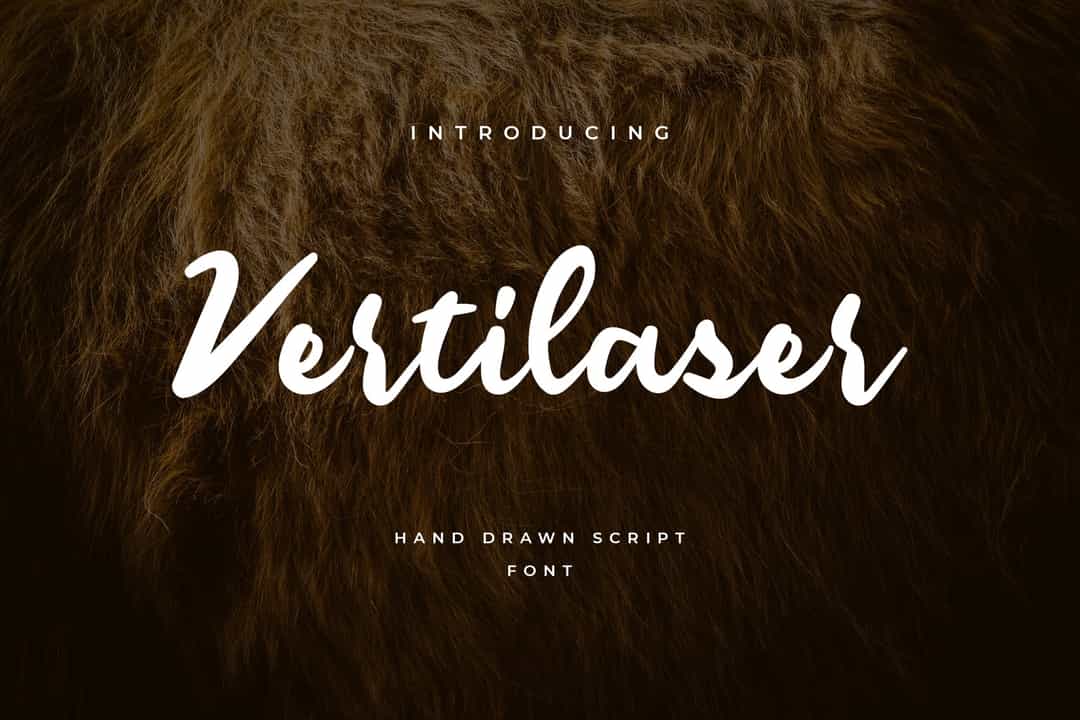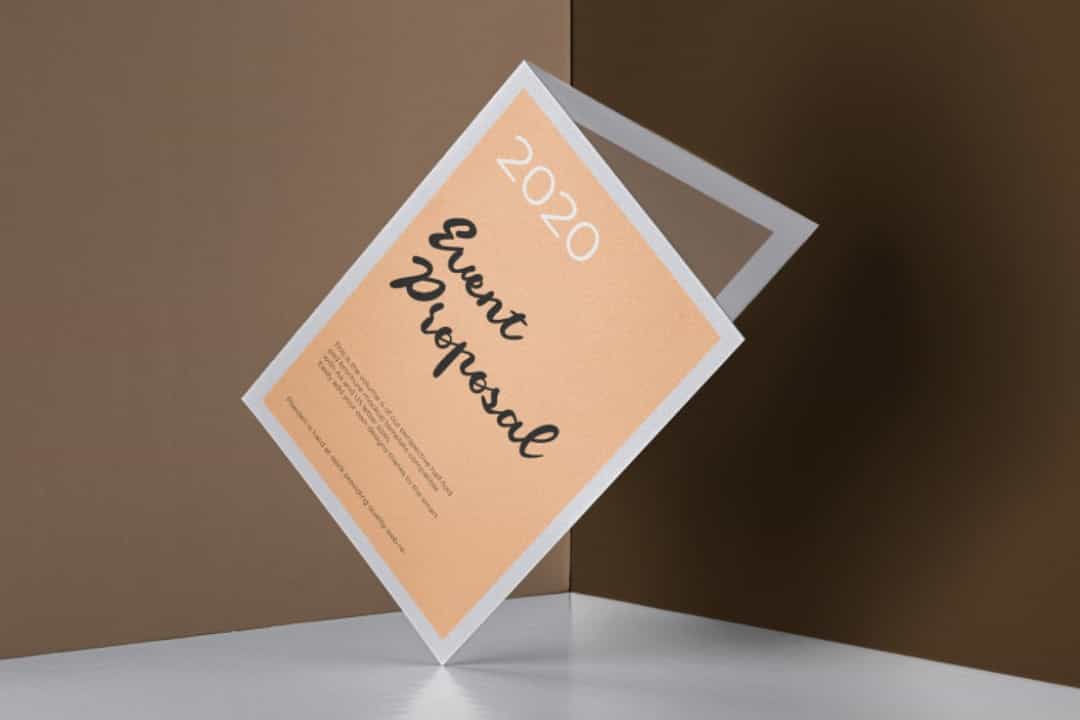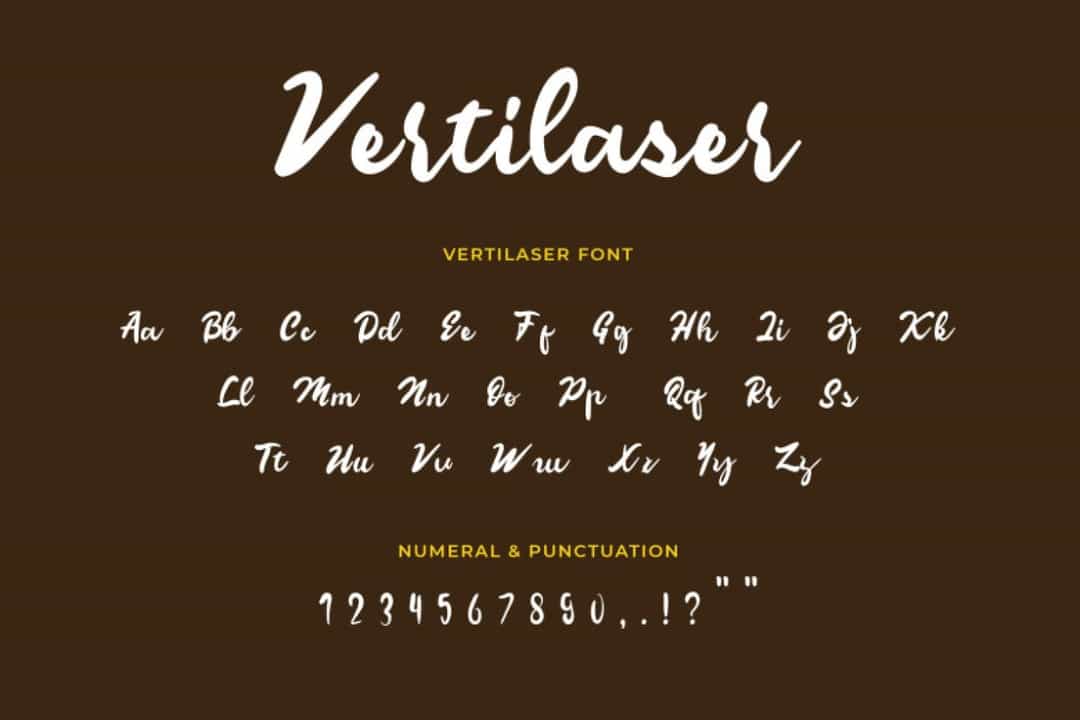
Discover Vertilaser Hand Drawn Script Font, part of the Handwritten Script collection—a versatile and unique font perfect for adding a personal touch to your projects. Download it for free and enjoy crafting designs with style, from invitations to social media posts. This font is available exclusively for personal use, giving you the freedom to create without limits. Unlock your creativity with Vertilaser Hand Drawn Script Font today!
Vertilaser font is one of the unique handwritten fonts coming under the script font family, that has a beautiful handwriting style. This font can be incorporated in many items and projects for the creative works.